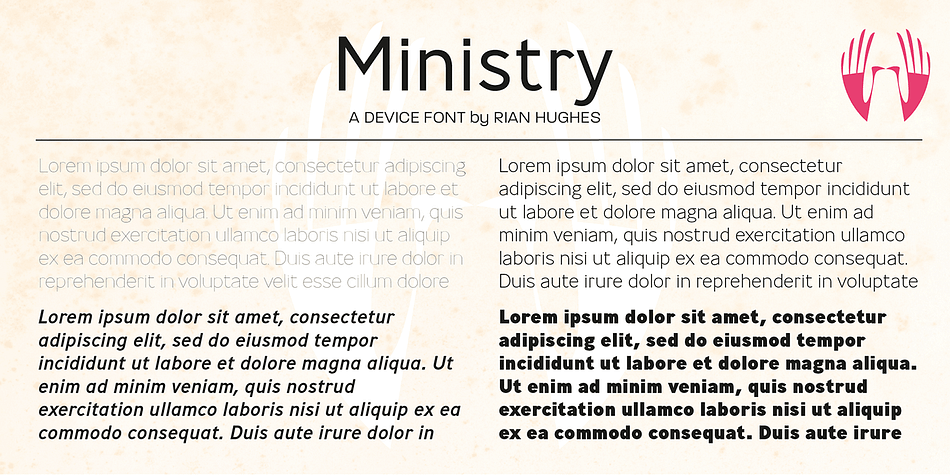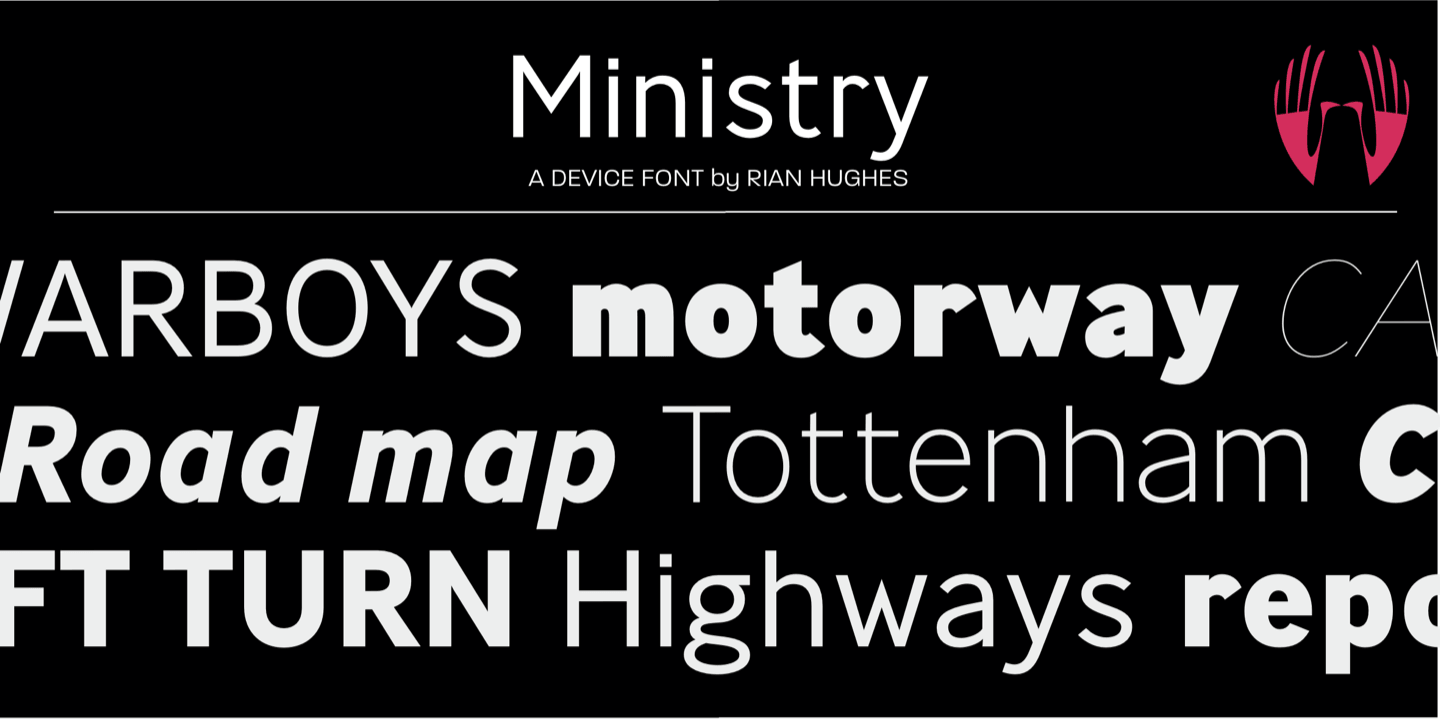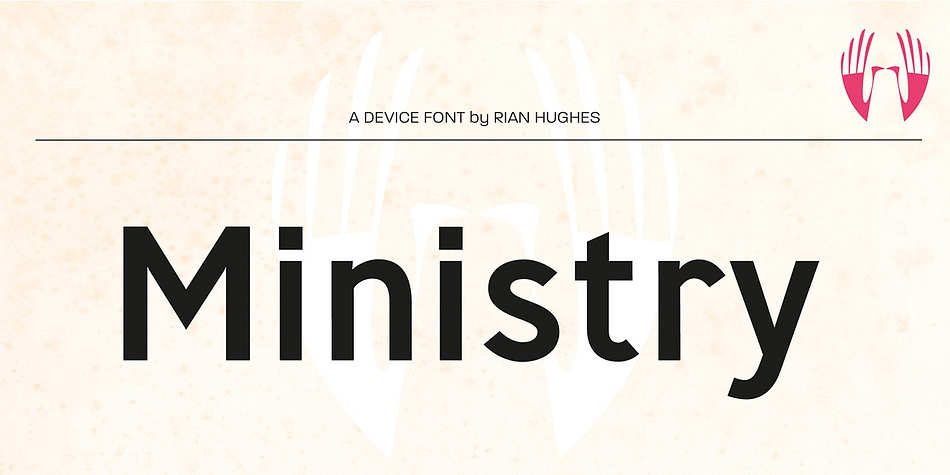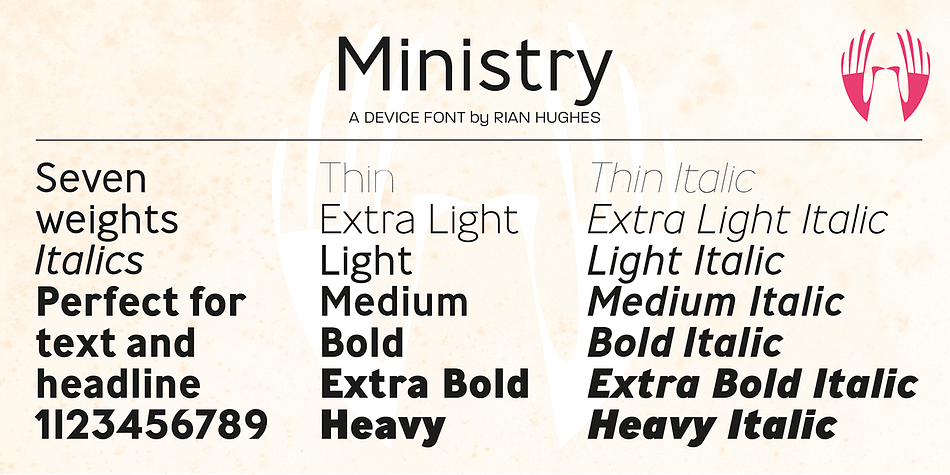
Designed by Rian Hughes, Ministry is a sans serif font family. This typeface has fourteen styles and was published by Device.
A 14-weight sans family based on the original British ‘M.O.T.’ (Ministry of Transport) alphabet.
A capitals-only, single-weight design was drawn up around 1933 for use on Britain’s road network, and remained in use until Jock Kinnear and Margaret Calvert’s ‘Transport Alphabet’ was introduced for Britain’s first motorway in 1958.
The identity of the original designer is not preserved; however, Antony Froshaug in a 1963 ‘Design’ magazine article mentions Edward Johnston as an advisor. Speculation that it was based on Johnston’s London Transport alphabet is discussed in archived government documents from 1957: “So far as I am aware, the Ministry alphabet was not based on Johnston’s design; indeed, it has been suggested that Gill got his idea from Johnston. Our alphabet was based on advice from Hubert Llewellyn-Smith (then chairman of the British Institute of Industrial Art) and Mr. J. G. West, a senior architect of H. M. Office of Works.”
A 1955-57 revision of the alphabet which polished the somewhat mechanical aspects of the original may be the work of stone carver and typographer David Kindersley.
For the digitisation, Rian Hughes added an entirely new lower case, italics and a range of weights. The lower case mimics the forms of the capitals wherever possible, taking cues form Gill and Johnston for letters such as the a and g, with single-tier versions in the italic.
A uniquely British font that is now available in a versatile family for modern use.